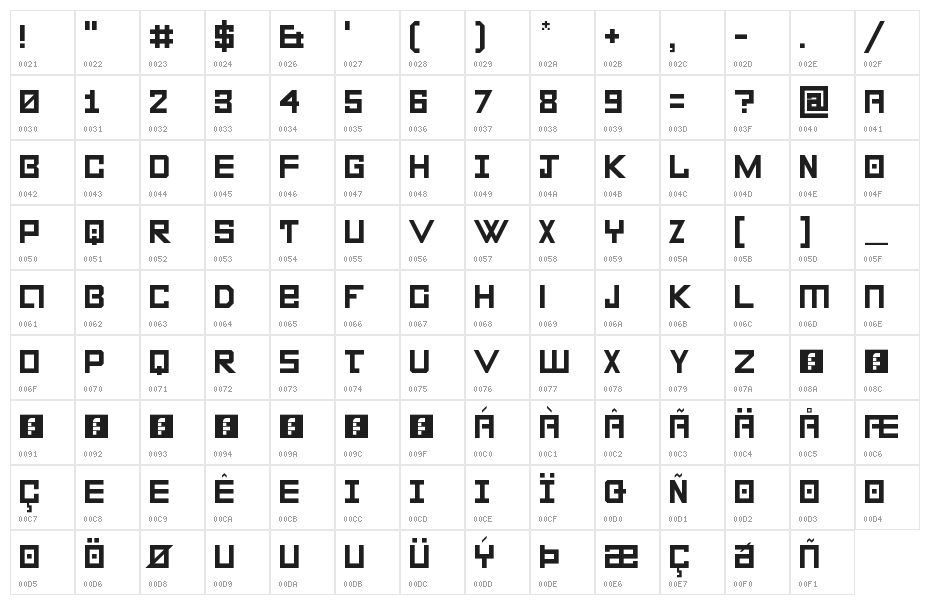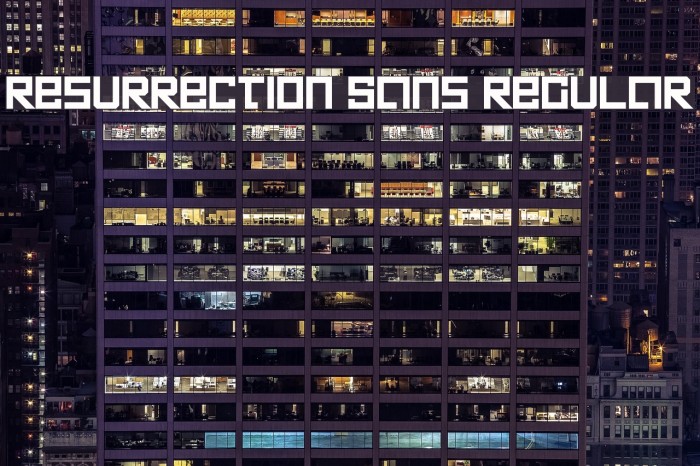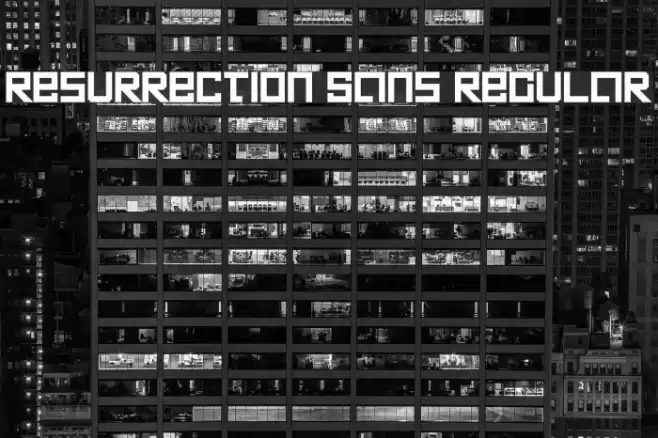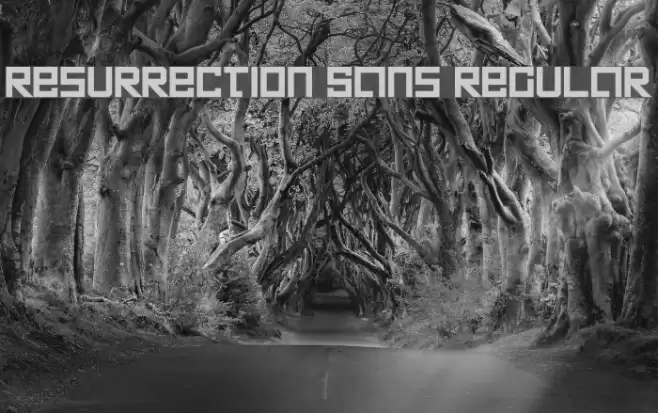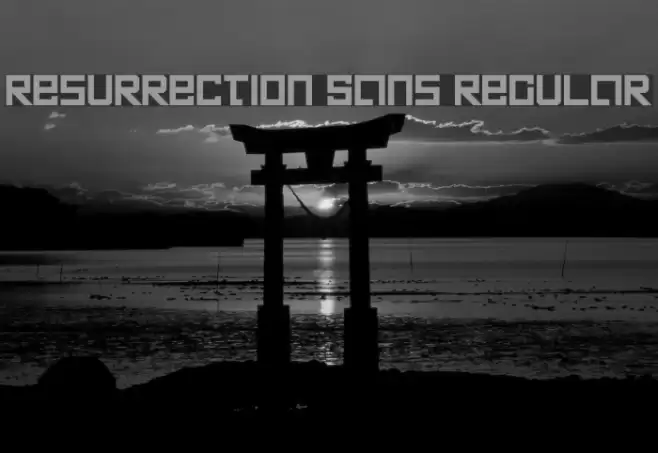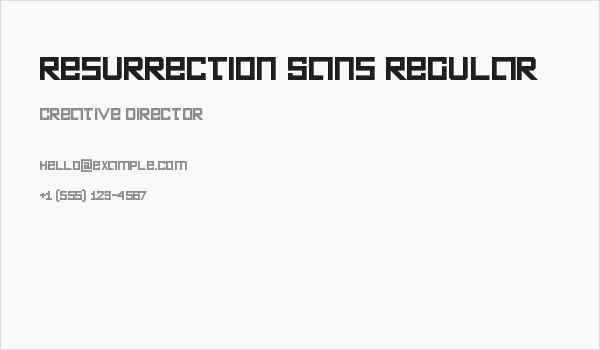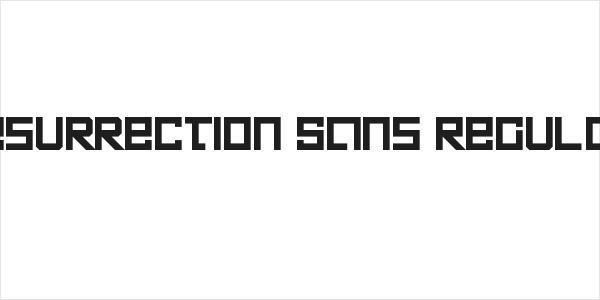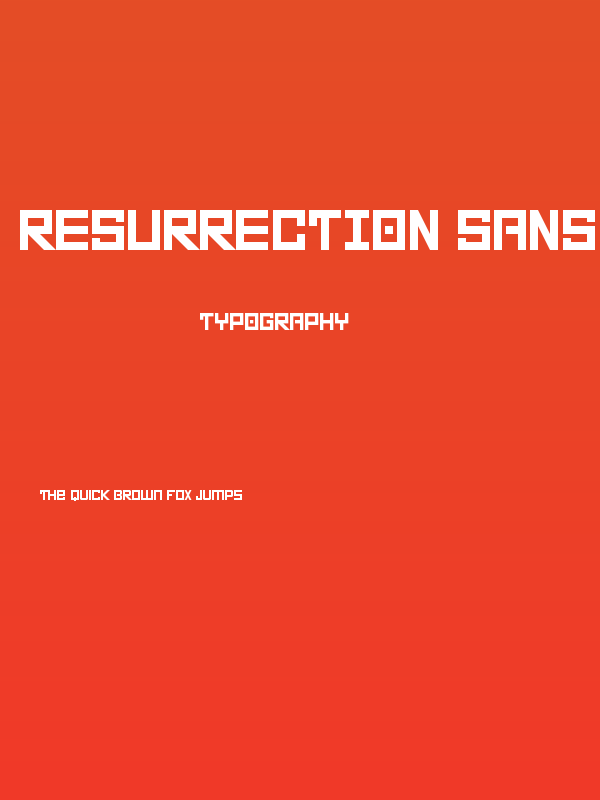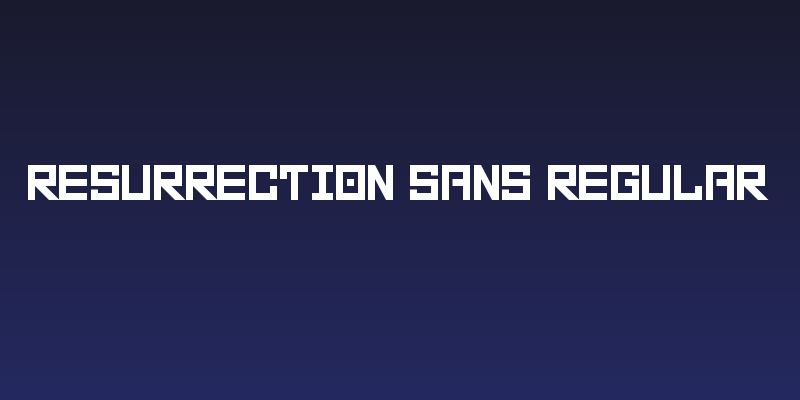
Resurrection Sans Regular Font
Resurrection Sans Regular Description
This font features a bold, geometric design with a strong, modern aesthetic. The characters are constructed with sharp angles and straight lines, giving it a futuristic and digital feel. The uppercase and lowercase letters maintain a consistent height, enhancing its uniform appearance. The numerals and special characters follow the same design principles, ensuring a cohesive look across all elements. This font's blocky style makes it highly legible and impactful, suitable for attention-grabbing headlines and displays.
| Proposed Projects | Ideal for technology branding, video game titles, futuristic posters, and digital interfaces. |